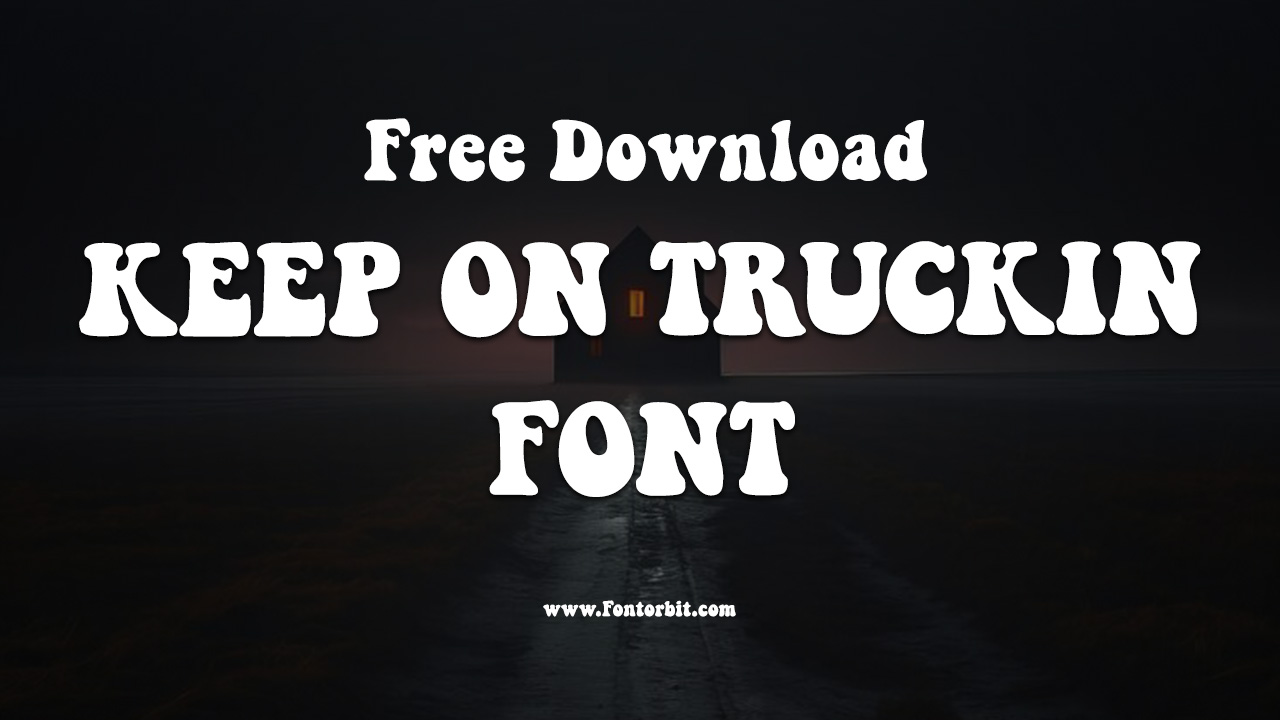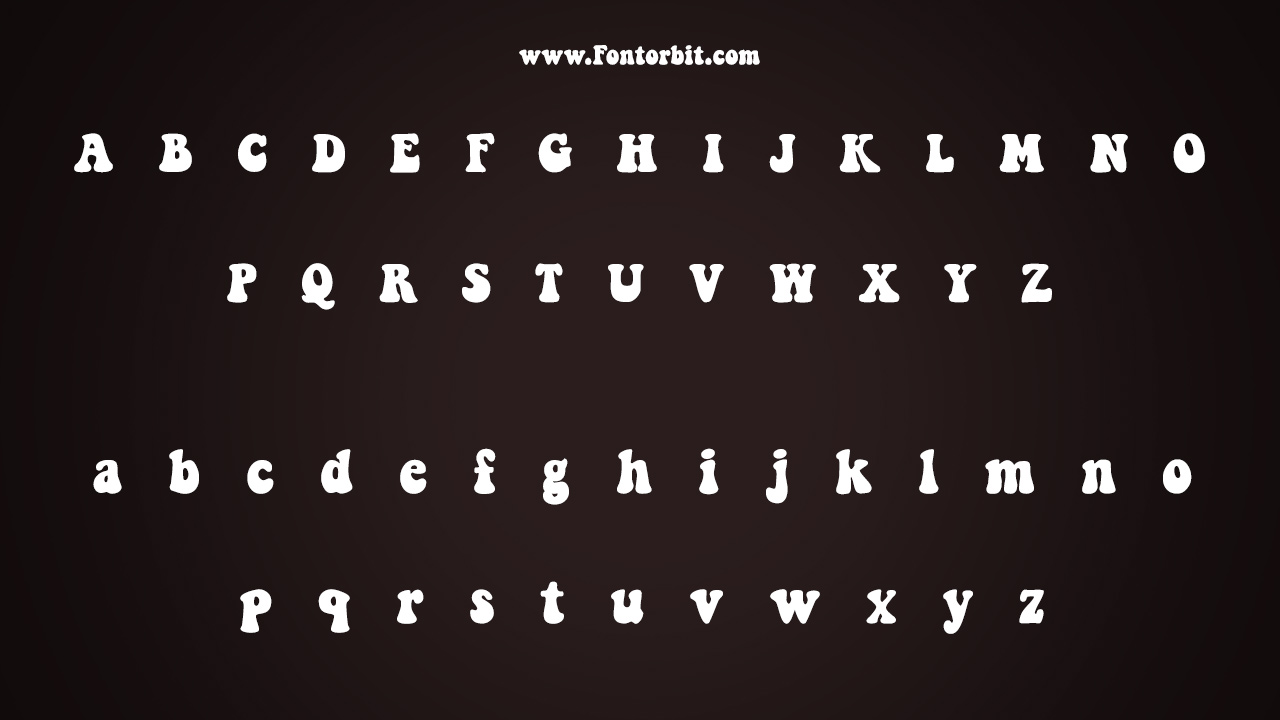
The Keep On Truckin’ Font, designed by Brain Eaters Font Co., captures the vibrant and groovy essence of the 70s.
This unique typeface features bold, bubble-letter styling with quirky serifs that reflect the playful and nostalgic spirit of the era. The font’s design is ideal for creating retro-inspired projects, from T-shirts to posters.
The Keep On Truckin’ Font is ideal for designs that need a nostalgic and energetic touch. Its vibrant, 70s-inspired look is perfect for retro-themed projects, music festivals, and merchandise, bringing a fun and lively element to your designs.
The Keep On Truckin’ Font embodies the playful and groovy spirit of the 70s, making it perfect for retro-themed designs and creative projects. Free for personal use, it offers a fun and vibrant alternative for adding a touch of nostalgia to your T-shirts, posters, and more. This font is a go-to choice for injecting personality and energy into your work.
1.What Is The Keep On Truckin’ Font?
The Keep On Truckin’ Font is a vibrant, retro-inspired typeface designed to capture the playful and nostalgic essence of the 70s with its bubble-letter style and quirky serifs.
2.Who Designed The Keep On Truckin’ Font?
Brain Eaters Font Co., designed the Keep On Truckin’ Font to reflect the energetic and groovy spirit of the 70s.
3.What Are The Key Features Of The Keep On Truckin’ Font?
The font features large, bubble-letter styles with irregular serifs, embodying a fun and nostalgic look ideal for retro-themed designs and projects.
4.How To Use Keep On Truckin’ Font In Branding?
Use it for retro-themed designs, music festival posters, merchandise, and creative advertising to capture the vibrant energy and nostalgic charm of the 70s.
5.What Are The Alternatives To The Keep On Truckin’ Font?
Similar fonts include Roundy Rainbows, Teaspoon, Pomporri, and Sakalangkong, which offer fun and retro aesthetics akin to the Keep On Truckin’ style.